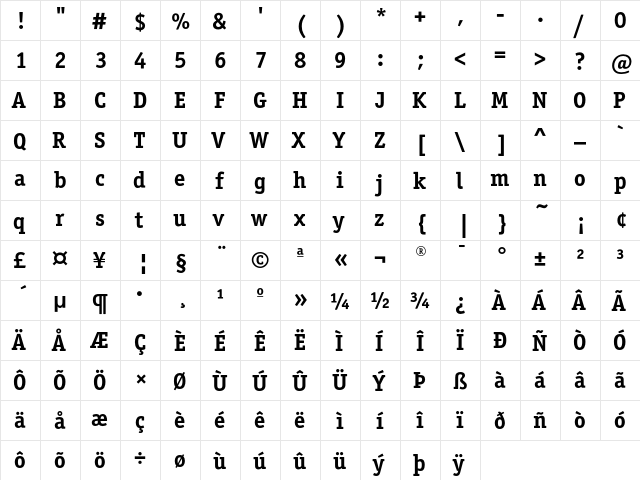
OfficinaSerifEF Bold Font Preview
OfficinaSerifEF Bold
Design Context for OfficinaSerifEF Typeface
OfficinaSerifEF carries the refined structure of traditional serif typography, with bracketed terminals and considered proportions that communicate credibility and craft. The heavy weight commands attention and anchors typographic hierarchies.
Pro Tip: Set OfficinaSerifEF with slightly loose tracking in headlines to let each letterform's detail read clearly at display sizes.